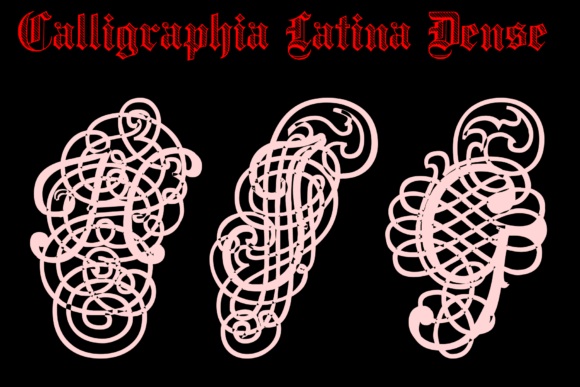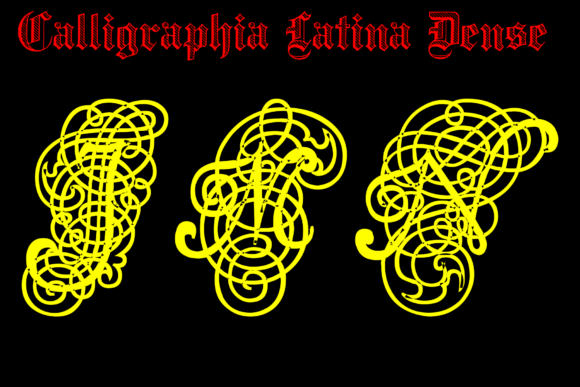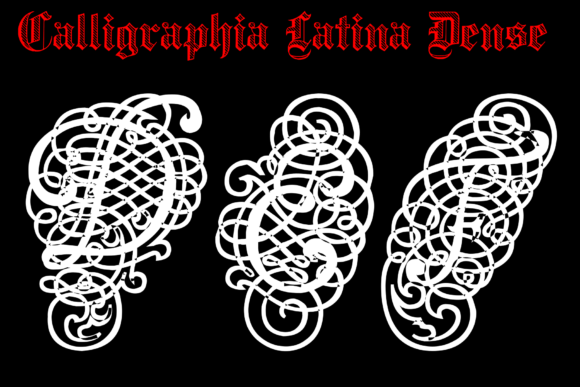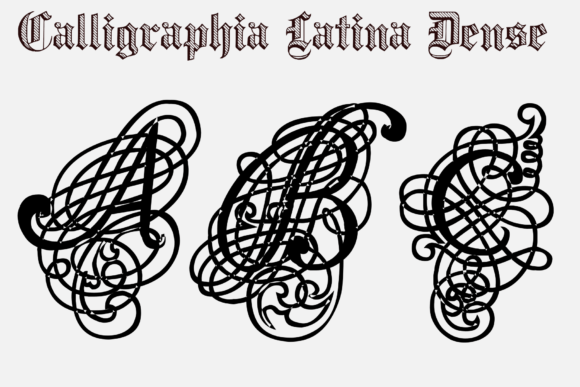
Introducing Calligraphia Latina Dense Font: A Timeless Elegance for Modern Designs
In the realm of typography, few fonts capture the essence of a bygone era as beautifully as Calligraphia Latina Dense. Inspired by the enchanting 18th century calligraphy, our font artistry brings forth a typeface that mirrors the antique grandeur of an era known for its artistic magnificence. As a top performer in our font family, Calligraphia Latina Dense offers a tasteful blend of vintage charm and modern elegance, ensuring that your designs are imbued with an unforgettable visual presence.
The Allure of 18th Century Calligraphy
The 18th century was a time of great artistic expression, with calligraphy being one of the most revered art forms. Characterized by its intricate lettering, flourishes, and ornate details, 18th century calligraphy was a testament to the skill and craftsmanship of its practitioners. This era saw the rise of various calligraphic styles, each with its unique charm and character. From the elegant copperplate script to the more ornate brush scripts, 18th century calligraphy was a true reflection of the period’s love for beauty and refinement.
Calligraphia Latina Dense: A Modern Take on Classic Elegance
Calligraphia Latina Dense is a font that pays homage to the classic calligraphy of the 18th century, while infusing it with a modern twist. This font is designed to evoke the same sense of elegance and sophistication that characterized the calligraphy of yesteryear, but with a density and clarity that makes it perfect for contemporary designs. Whether you’re a designer looking to add a touch of vintage charm to your projects or a craftsperson seeking to create unique and eye-catching designs, Calligraphia Latina Dense is the perfect choice.
Key Features of Calligraphia Latina Dense Font
- Classic yet Modern: Calligraphia Latina Dense strikes the perfect balance between vintage charm and modern elegance, making it suitable for a wide range of design applications.
- Highly Legible: Despite its density, the font remains highly legible, ensuring that your message is conveyed clearly and effectively.
- Ornate Details: The font features intricate lettering, flourishes, and ornate details that are reminiscent of 18th century calligraphy.
- Versatile: Calligraphia Latina Dense can be used for a variety of design projects, from wedding invitations and stationery to branding and advertising materials.
Design Applications for Calligraphia Latina Dense
Calligraphia Latina Dense is a versatile font that can be used in a multitude of design applications. Here are a few ideas to get you started:
- Wedding Invitations and Stationery: Add a touch of elegance and sophistication to your wedding invitations, stationery, and other paper goods with Calligraphia Latina Dense.
- Branding and Advertising: Use the font to create eye-catching logos, advertisements, and marketing materials that exude a sense of refinement and luxury.
- Packaging Design: Calligraphia Latina Dense is perfect for packaging design, particularly for products that require a touch of elegance and sophistication.
- Digital Designs: The font can also be used for digital designs, such as social media graphics, website headers, and email newsletters.
Tips for Using Calligraphia Latina Dense
To get the most out of Calligraphia Latina Dense, here are a few tips to keep in mind:
- Use it Sparingly: While Calligraphia Latina Dense is a beautiful font, it’s best used sparingly to avoid overwhelming the reader.
- Pair it with a Simple Font: Pair the font with a simple, sans-serif font to create visual contrast and make your design more readable.
- Experiment with Colors: Calligraphia Latina Dense looks stunning in a variety of colors, so don’t be afraid to experiment and find the perfect hue for your design.
In conclusion, Calligraphia Latina Dense is a timeless font that brings the elegance and sophistication of 18th century calligraphy to modern designs. With its classic yet modern aesthetic, highly legible design, and ornate details, this font is perfect for designers and craftspersons looking to add a touch of vintage charm to their projects. So why wait? Download Calligraphia Latina Dense today and experience the beauty of 18th century calligraphy in your modern designs!